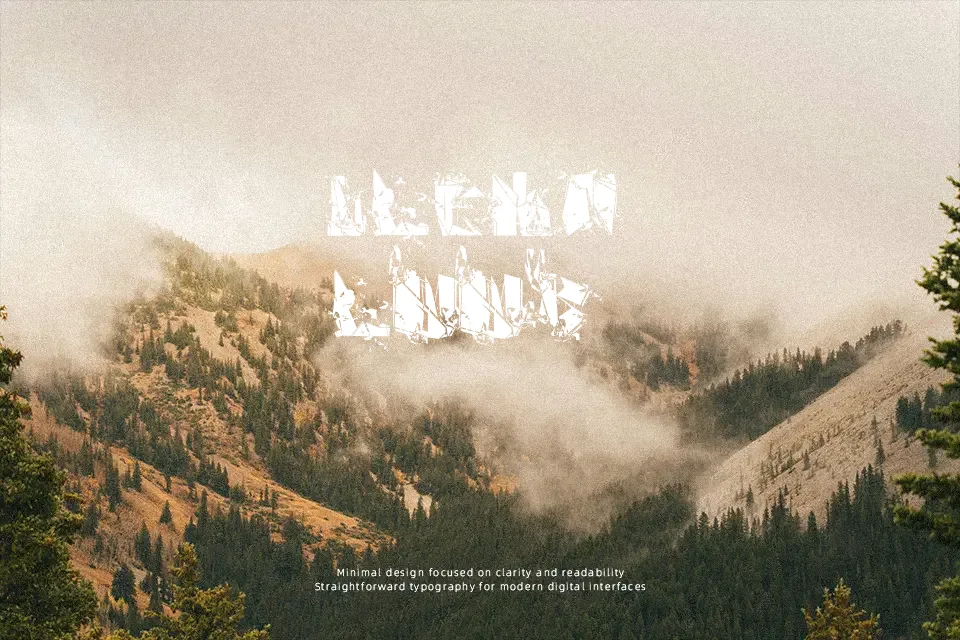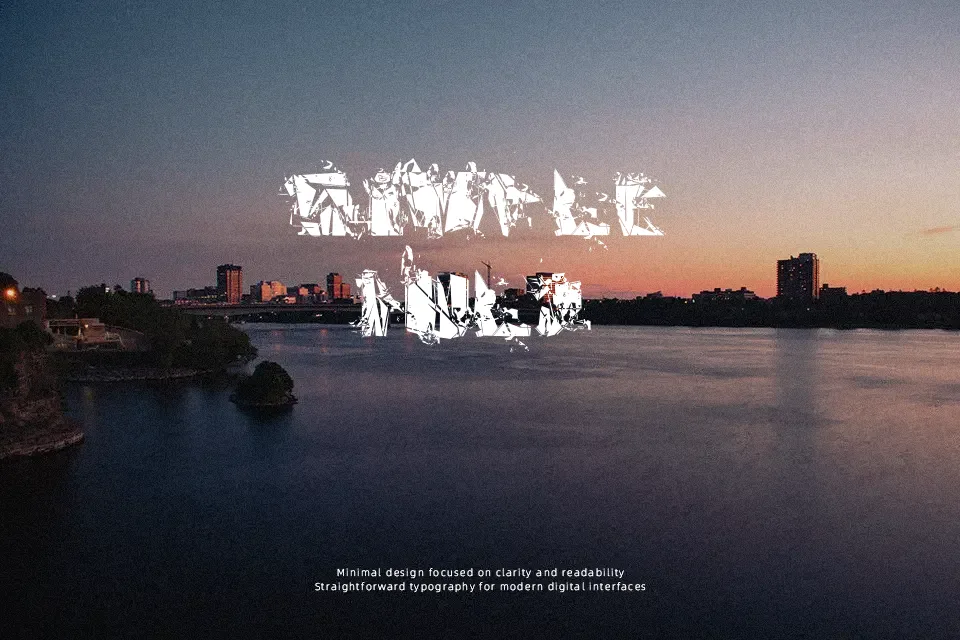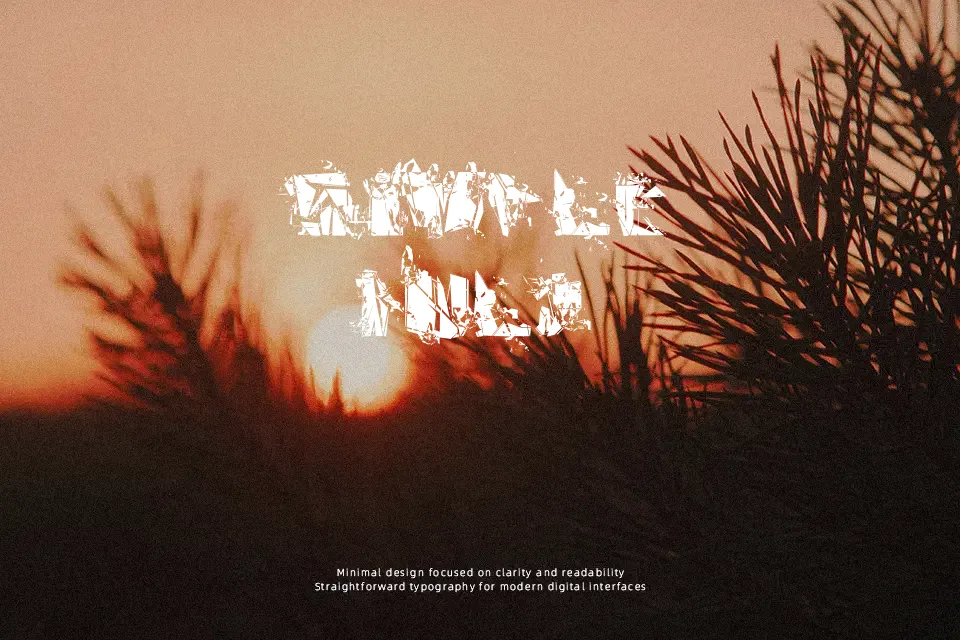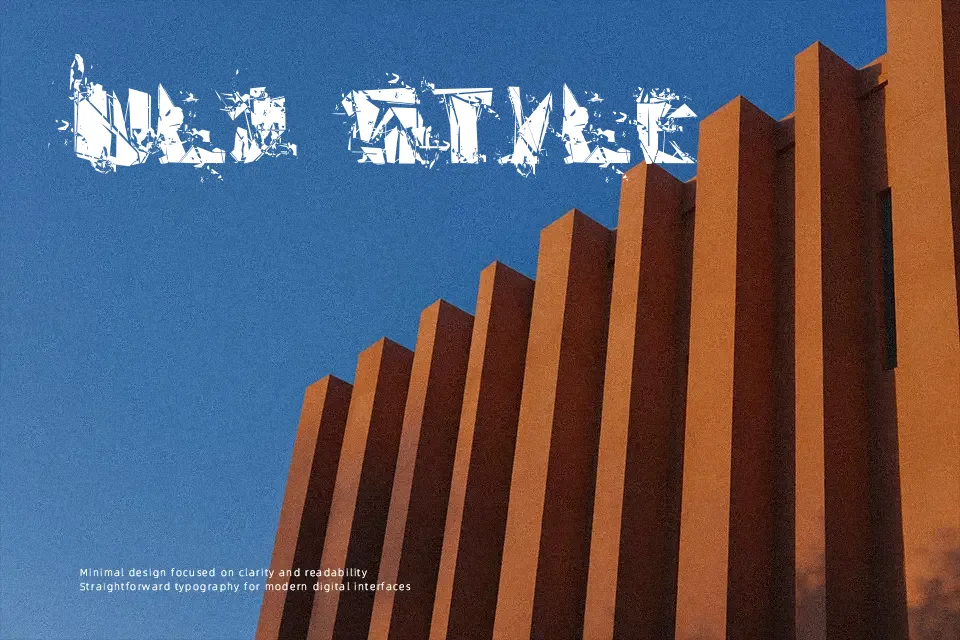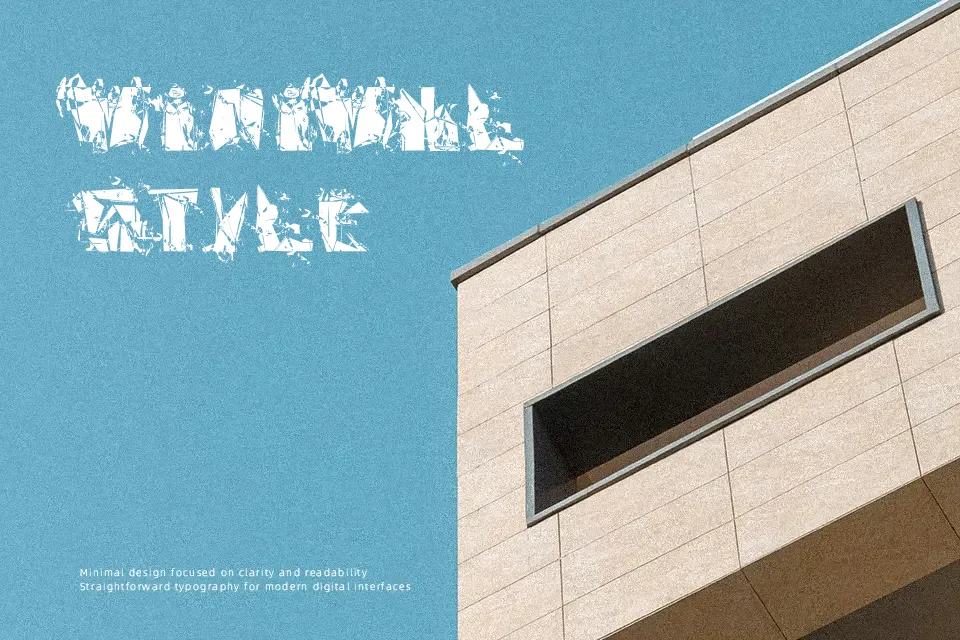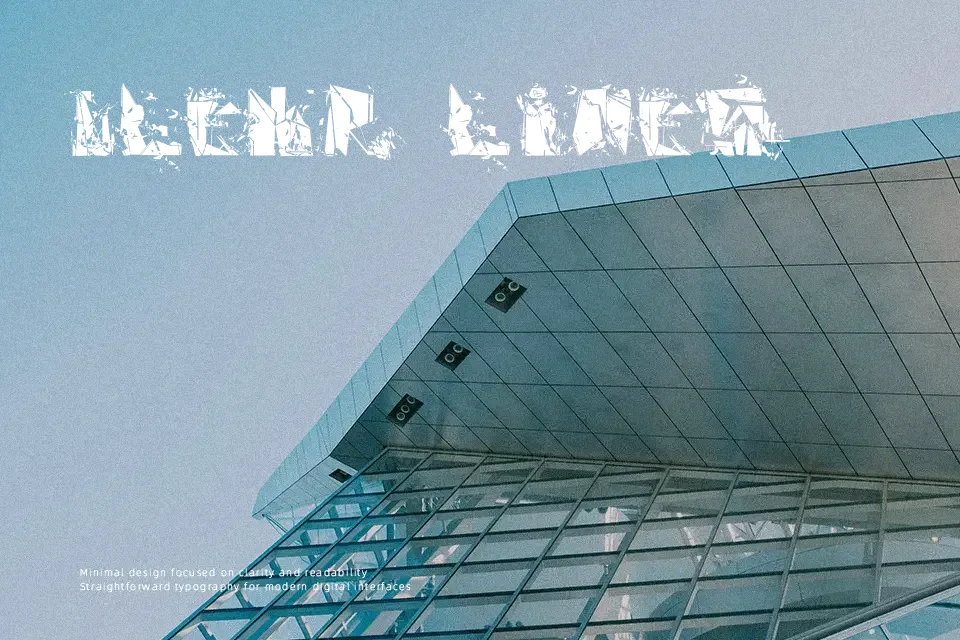
Abstract Rua Font
Abstract Rua carries an unmistakably raw, hand-torn quality — letters feel like they’ve been scrawled and fractured rather than drawn. The strokes are irregular, heavy in places and broken in others, with an overall structure that leans into visual chaos without losing legibility at display sizes. It suits poster art, band merchandise, tattoo-style layouts, and street culture branding where conventional polish would actually work against the design. That said, the distressed character makes it entirely unsuitable for anything requiring clarity at small sizes or body text use — readability degrades quickly below headline scale. Works well when you need raw visual tension; avoid it if the project calls for professionalism or approachability.
– Music event posters and gig flyers
– Street art or graffiti-inspired branding
– Tattoo lettering references and flash sheets
– Underground zine or editorial headlines
– Body text or extended reading
– Corporate identity or formal documents
– Small-size UI labels or captions
– Children’s or family-oriented projects
Perfect for advertising, branding, and music, with a bold and decorative style.